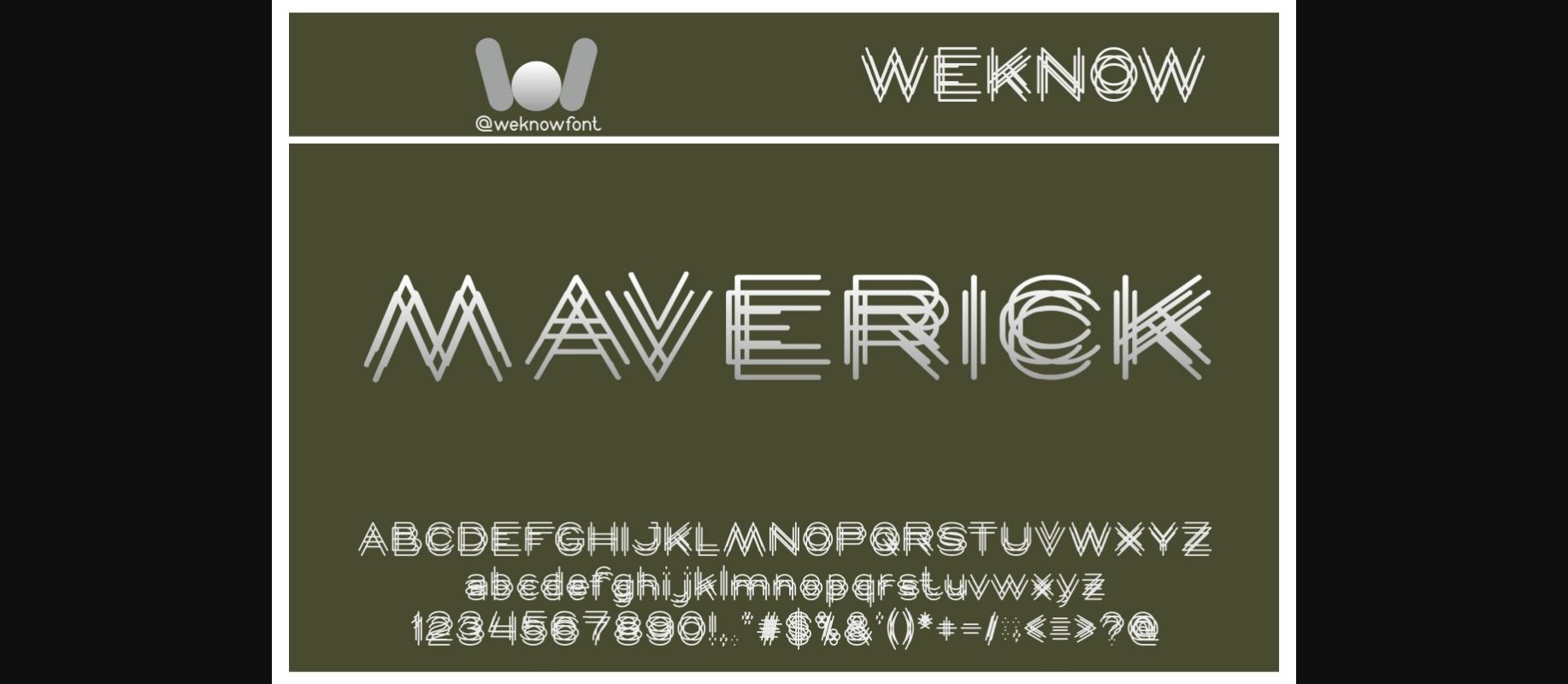
Maverick Font
About Maverick Font
Maverick is a fancy and unusual decorative font suitable for your craziest design ideas! Use it for logo, logotype, headline font, corporate identity, brand identity, apparel industry, poster, music, movie, game, magazine, book, comic, cartoon, YouTube, Instagram, website, or anything else.